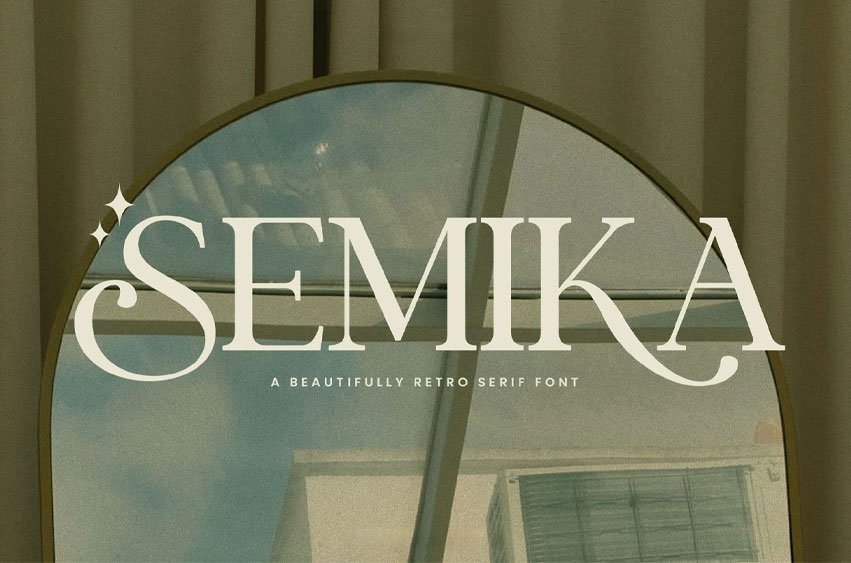
Semika Font is a beautiful retro serif typeface that blends nostalgic charm with a smooth modern touch. Inspired by vintage aesthetics, it features soft curves, stylish serifs, and distinctive letterforms that create a warm and eye-catching look.
Its retro personality brings a sense of character and uniqueness, while the refined structure keeps it versatile and easy to use. Whether for branding, posters, or editorial design, Semika delivers a timeless yet trendy visual style.
Who Should Use Semika? Semika is ideal for designers, creatives, and brands who love vintage-inspired typography with a modern finish. It’s especially suited for projects that require a retro feel with a stylish and elegant presentation.
Suitable For: Retro and vintage branding Poster and promotional design Editorial and magazine layouts Logo and identity design Packaging and product labels Café and lifestyle branding Social media visuals Creative typography compositions